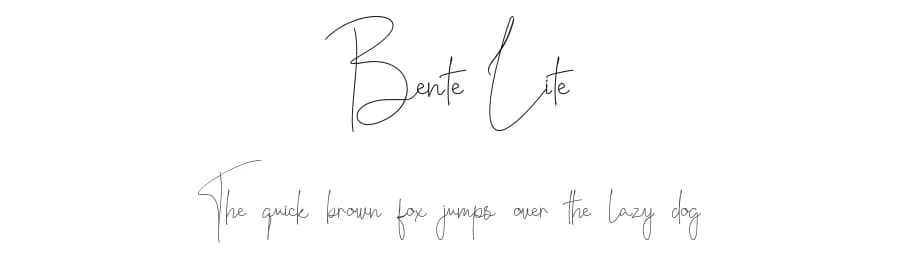
About Bente Lite Font
Bente is an incredibly unique and stunning script with a bold vibe. A new modern & fresh script with a handwritten and script style makes this font looks elegant, natural, stylish, and perfect for any awesome projects that need handwriting taste.
Bente would be perfect for photography, watermark, social media posts, advertisements, logos & branding, invitation, product designs, label, stationery, wedding designs, product packaging, special events, or anything that needs handwriting taste. Get inspired by its modern elegance.
Bente Lite Font is a script font that shines as a display or heading face. Pair it with a clean sans-serif or serif font for body text β the contrast creates a clear hierarchy while the two styles stay balanced and easy to read.